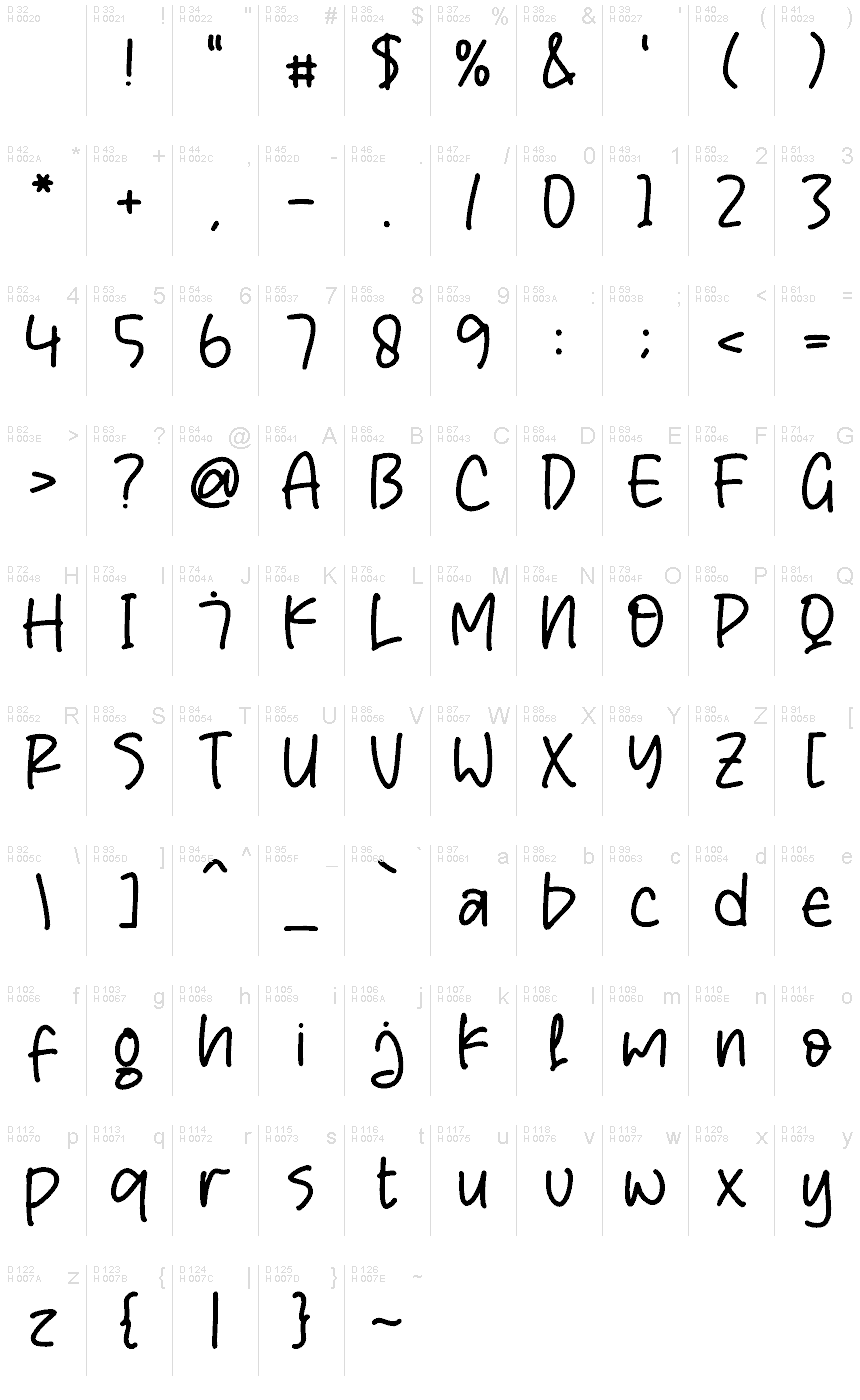
Grainful Notes
Grainful Notes font by Perspectype Studio - Letterena.com is a light handwritten font featuring delicate shapes and smooth lines. The collection of letters, symbols, and numbers present casual yet modern elements that can benefit up-to-date designs. Furthermore, the organic flow and relaxed vibe make this free handwritten font stress-free to read in small text sizes.
Grainful Notes font is perfect for menu descriptions, recipe books, invitation cards (plus wedding invitations), letters writing, digital presentations (banners & headers), book cover designs (kids’ books & novels), packaging designs (food products), brands for women’s businesses and magazines covers or internal pages.